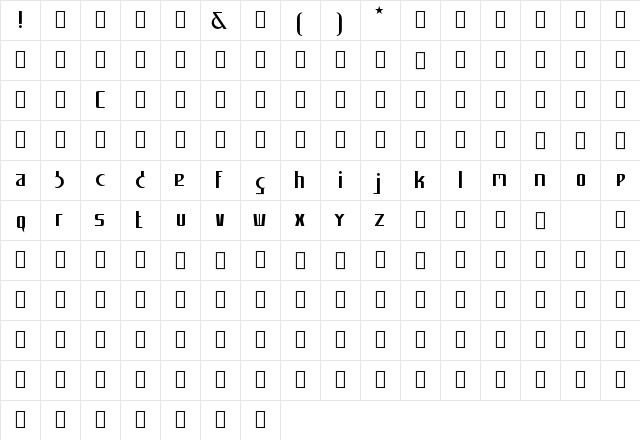
Carannorov Regular
Design Context for Carannorov Typeface
Carannorov takes a measured approach to typography — its balanced proportions and neutral character make it a reliable workhorse for both digital and print work.